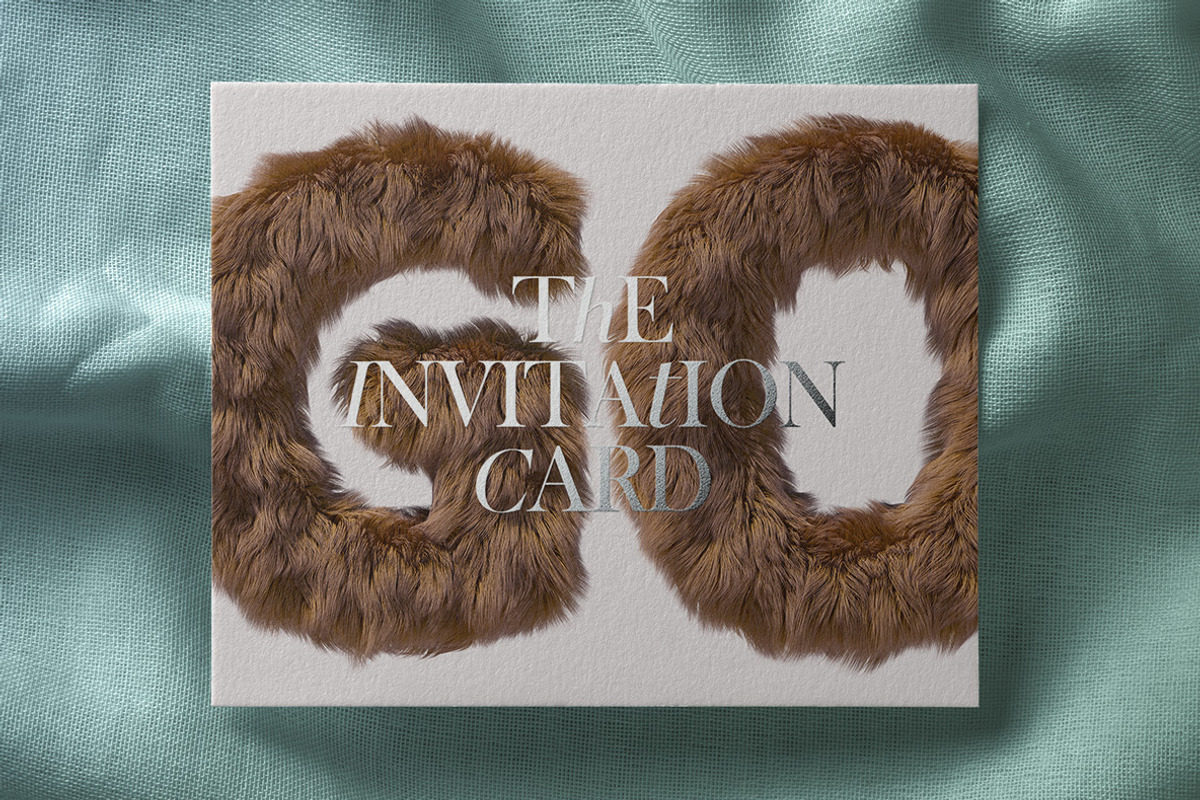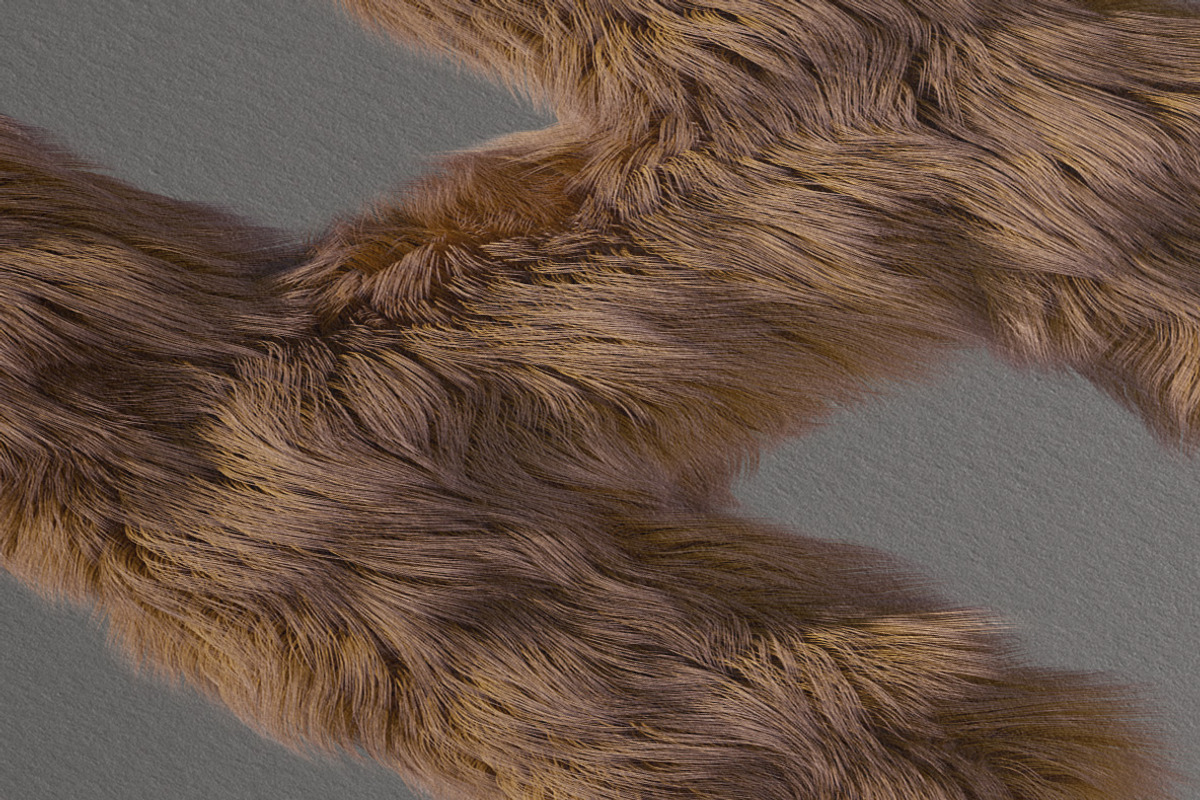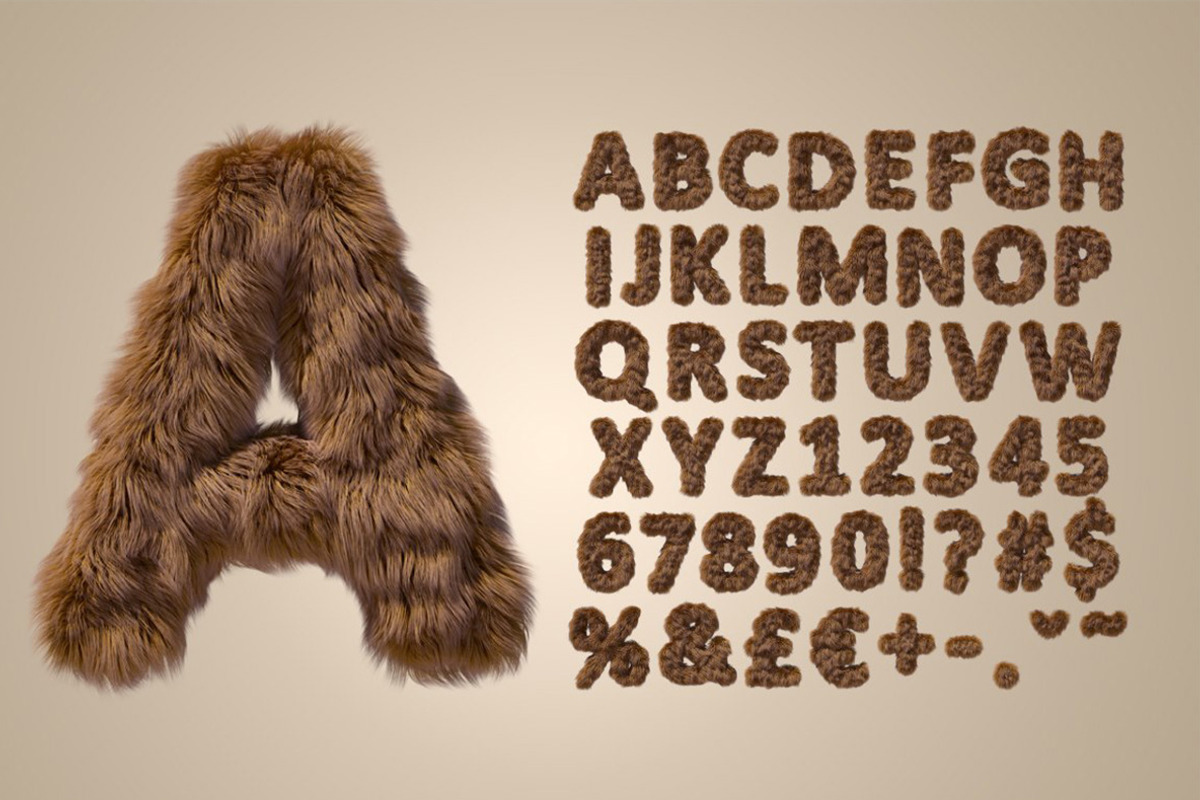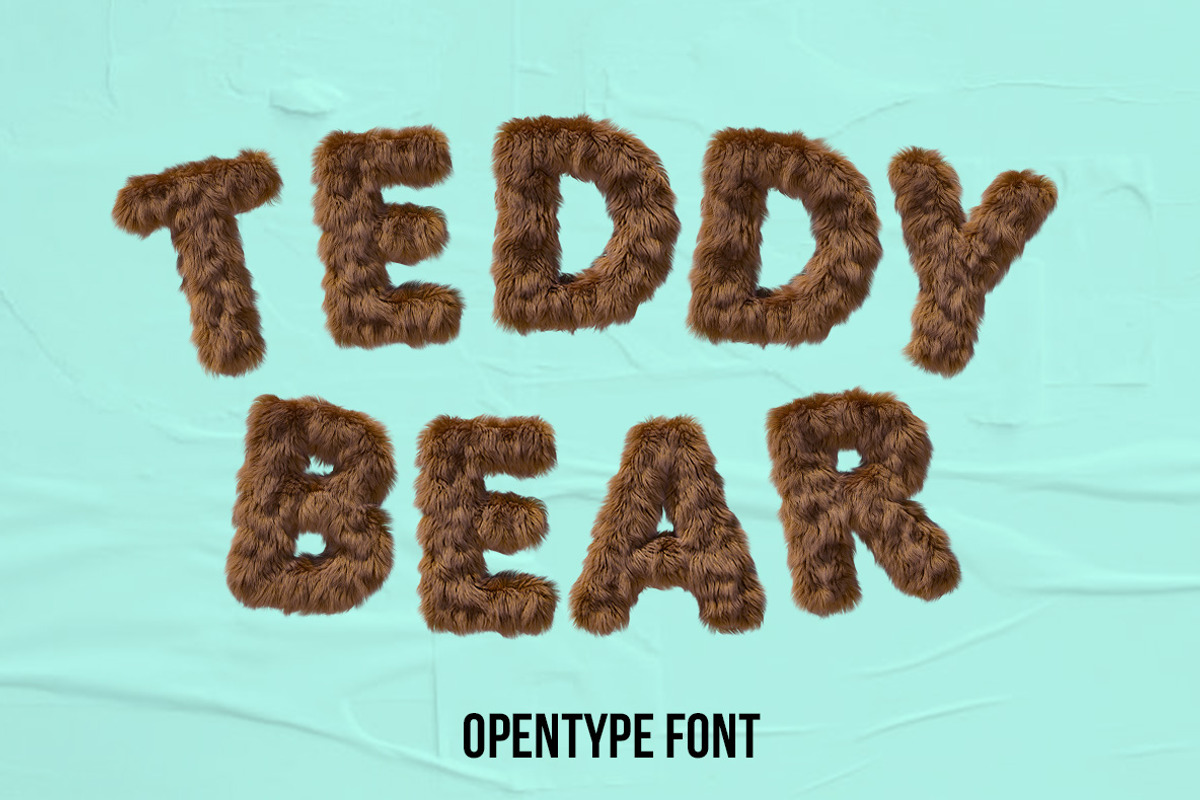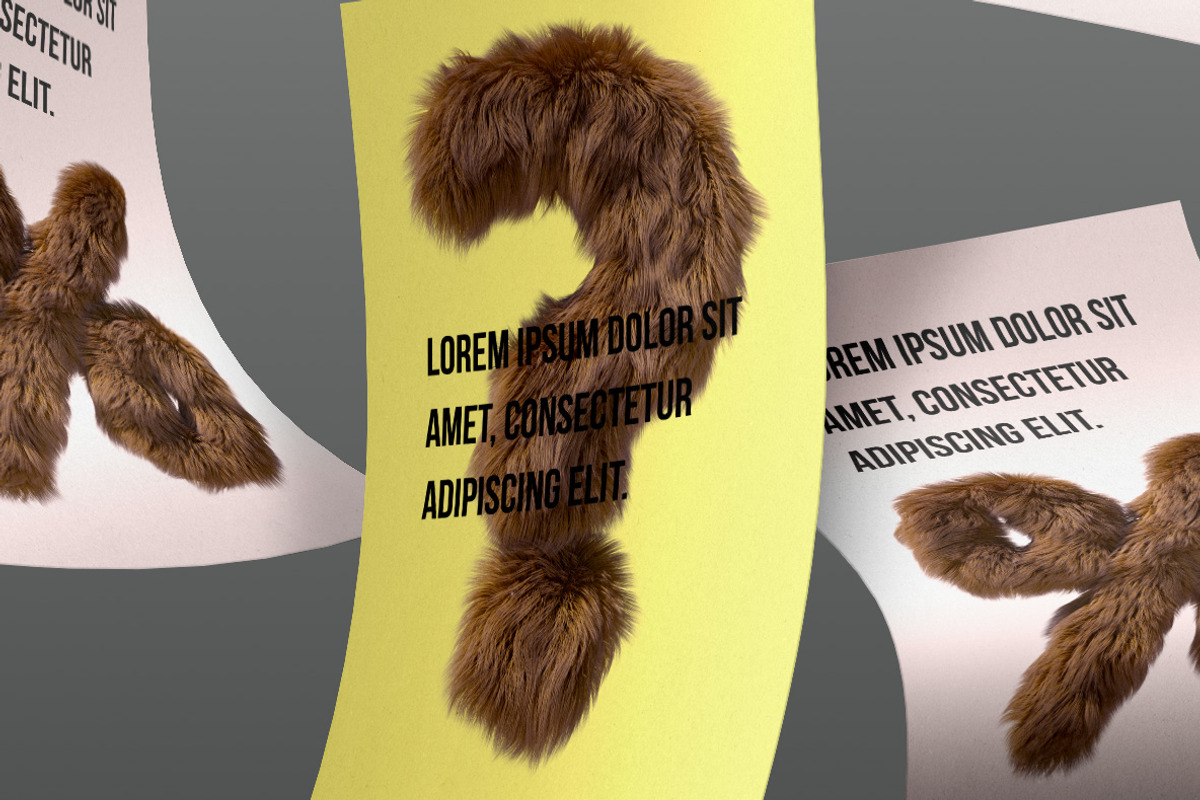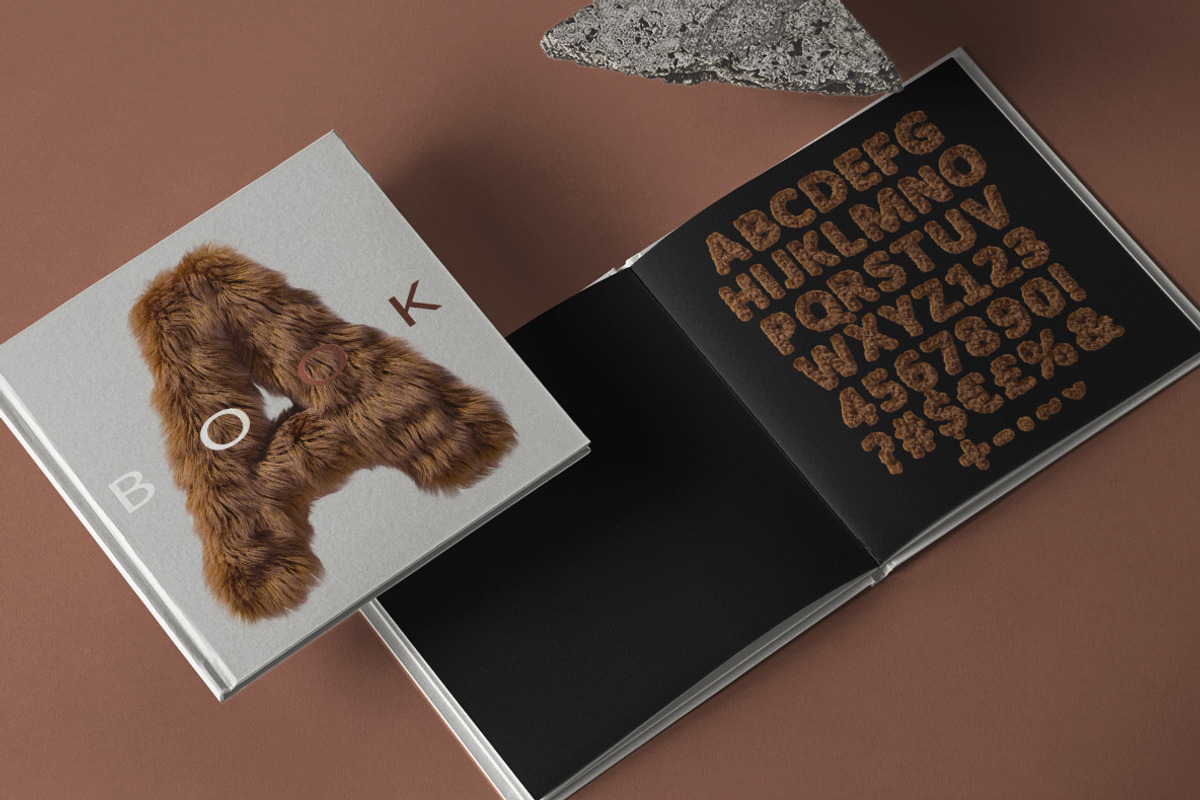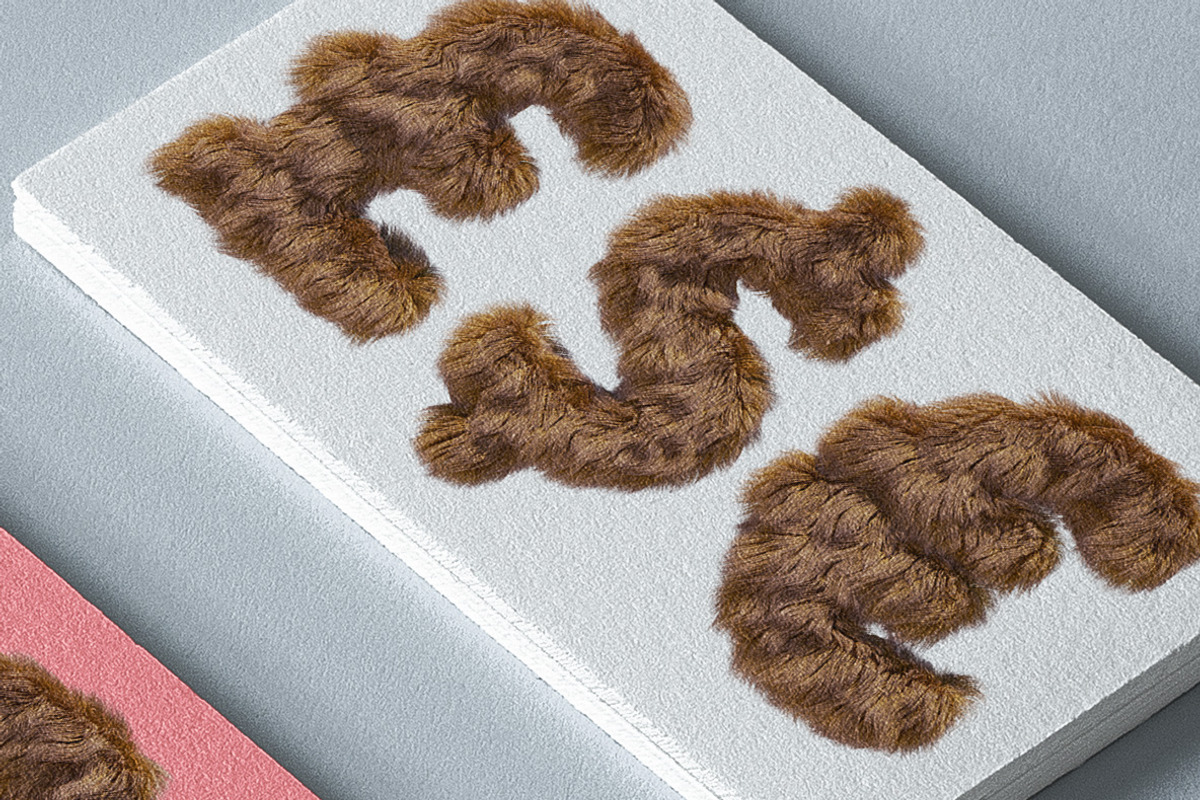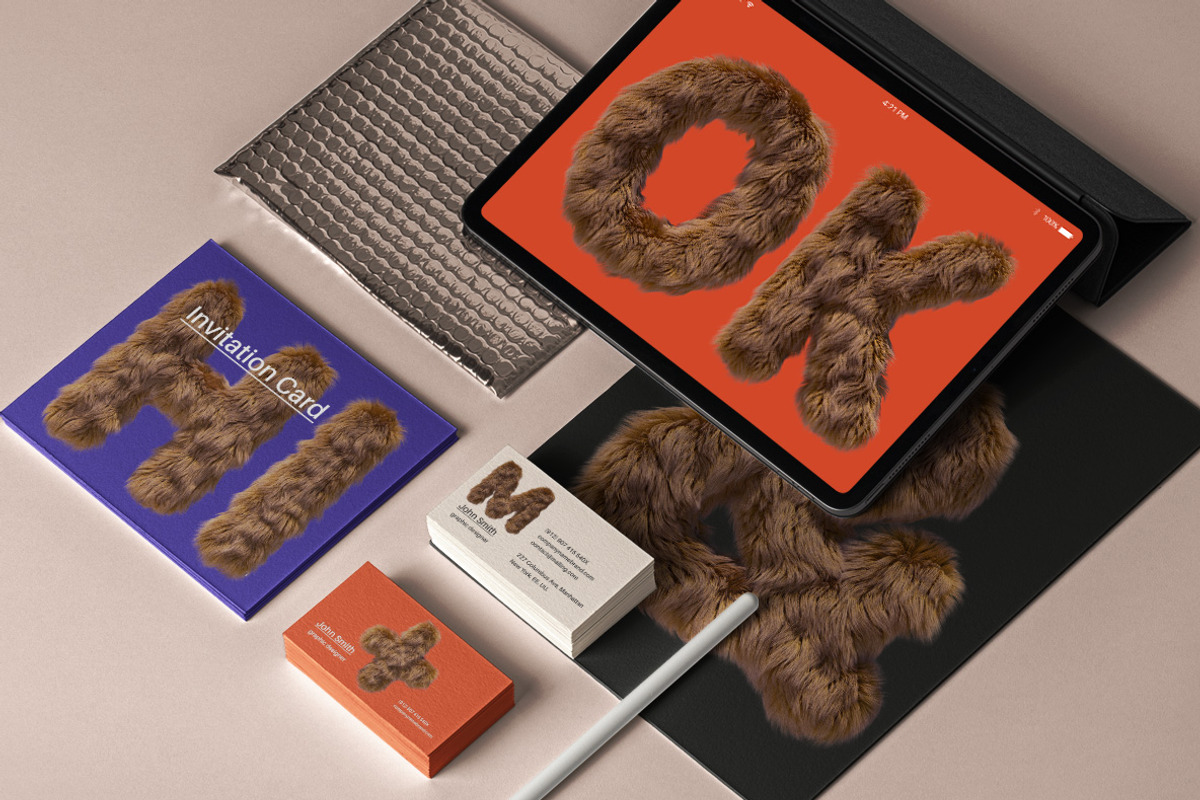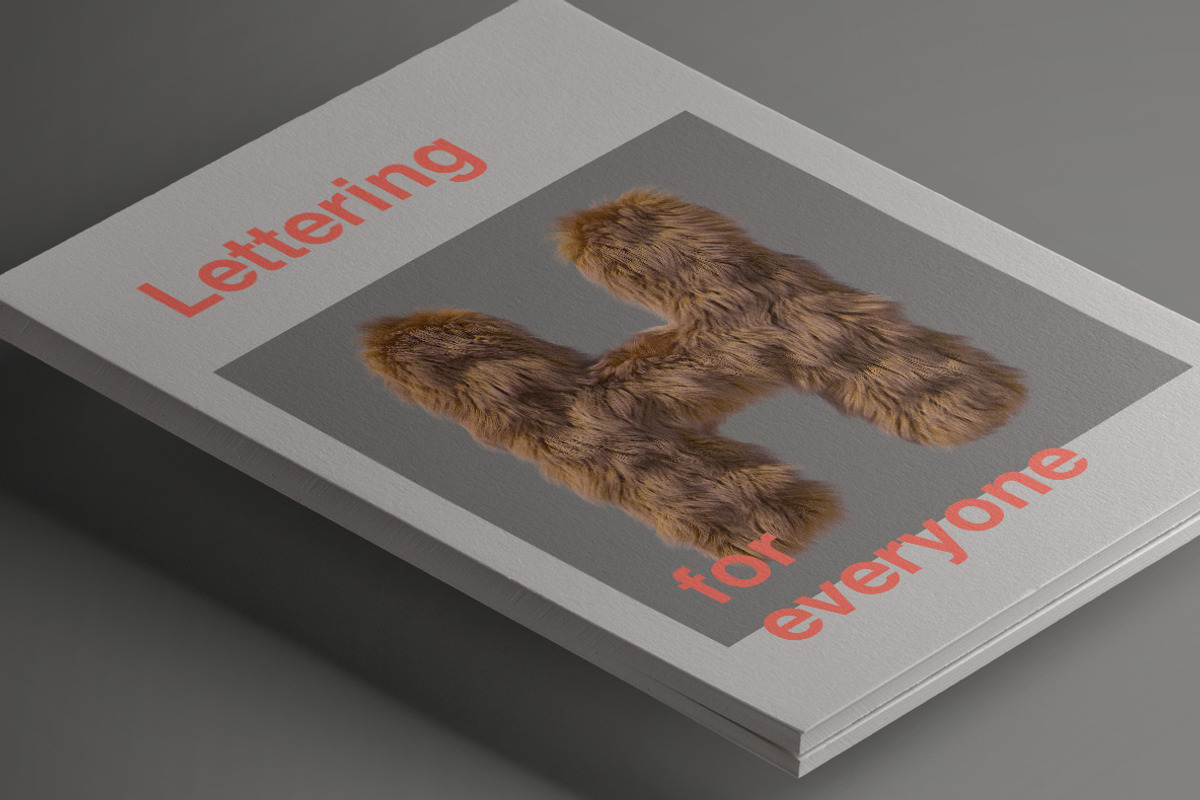
Teddy Bear Font
Teddy Bear SVG Font. A high definition OpenType-SVG font built-in 3D. Contains uppercase characters, numerals and basic punctuation. (Draw height roughly 800 pixels). All letters and glyphs that comprises this font you can see on the preview.